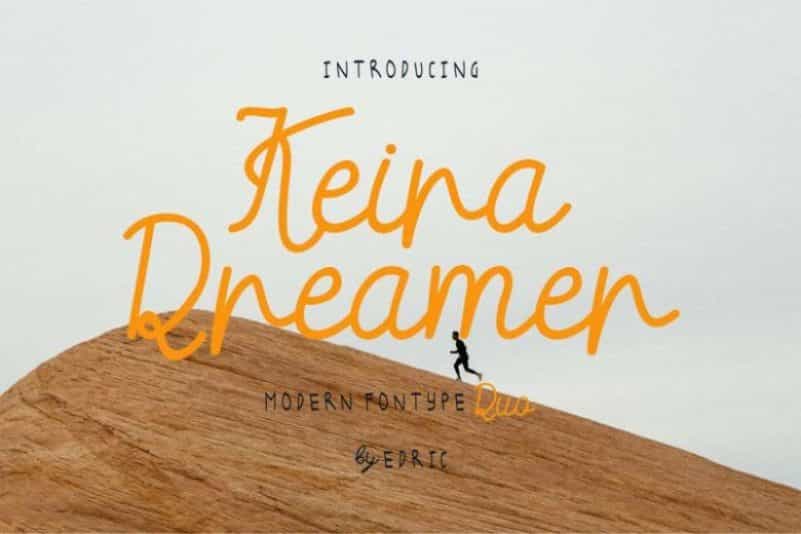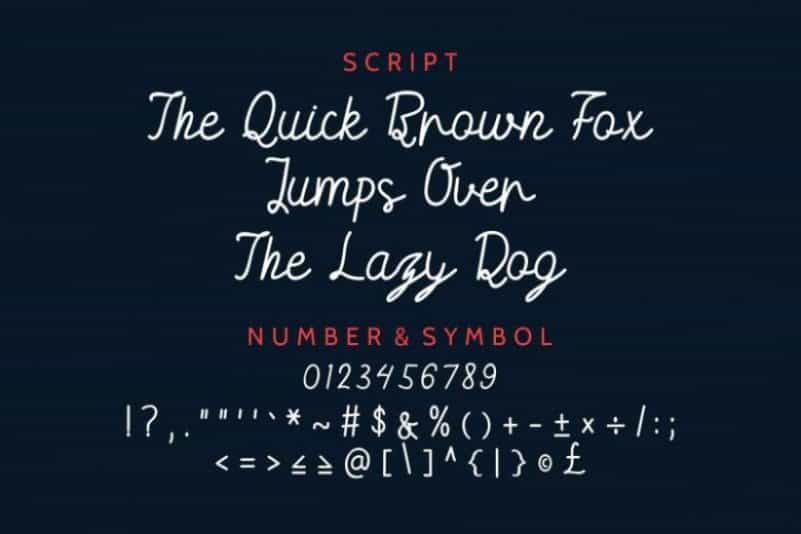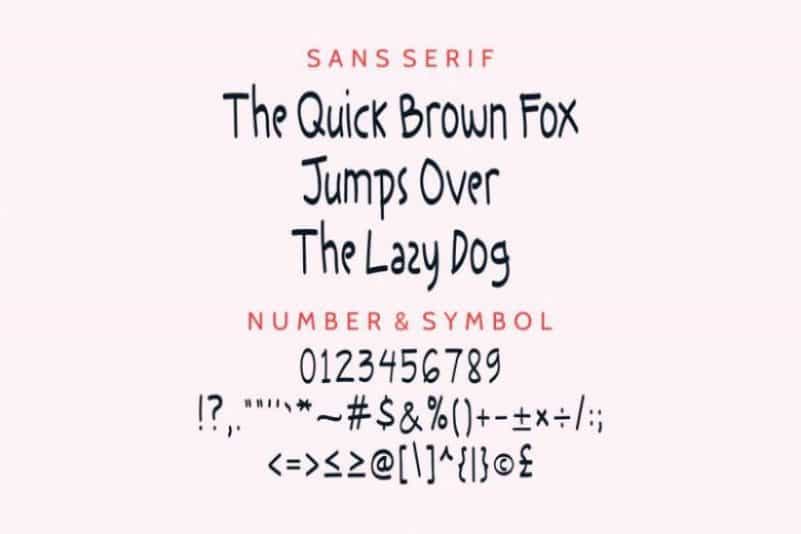
Keira Dreamer Script Font Duo
Keira Dreamer Script Font Duo! A sans handwritten display and handwriting script Great for branding, logo, stationery, business card, signage, flyer, brochure etc. There are many industries that is suitable for this font : restaurant, wedding, photography, education and non profit etc.